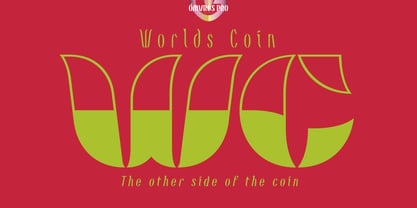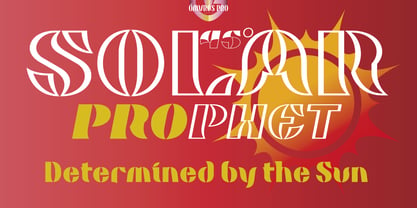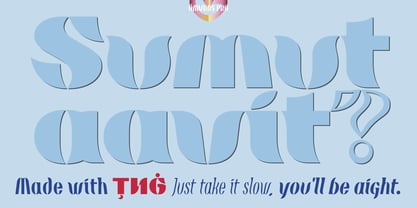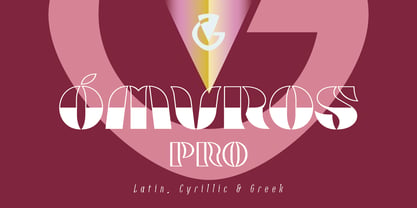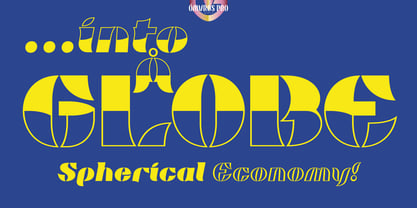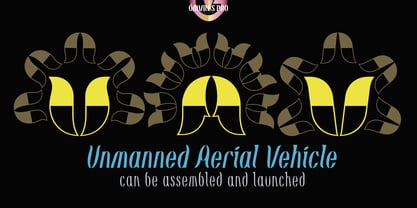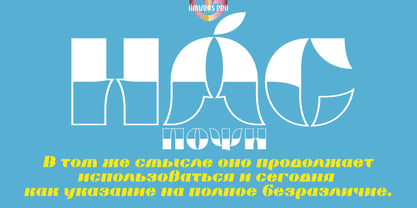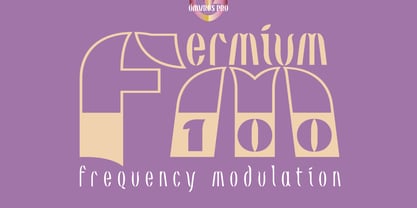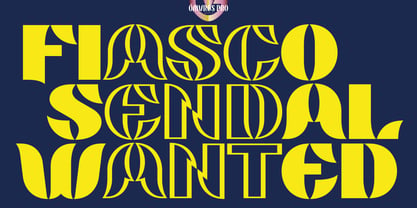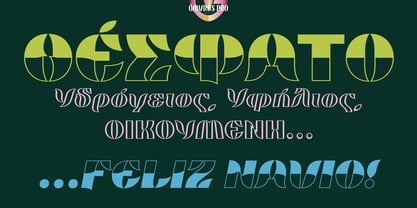
Omvros Pro
by DBSV
The Omvros Pro Font Family was designed by Vangelis Dim. Gardikiotis and published by DBSV. Omvros Pro contains 18 styles and family package options. More about this family
About family “Omvros Pro” The word Omvros means heavy rain, sudden rain, or downpour. It is an atmospheric phenomenon like rain or snow. This water is collected in a separate rainwater network or in absorption wells and is not mixed with the lemmas (dirty water from homes). In summary, it is rainwater that must be removed from structures to prevent flooding and moisture damage for environmental protection. I aimed to incorporate into the design the flow, leakage, and collection of rainwater that comes freely from the atmosphere and is so beneficial for everything in the whole Universe. This series is composed of eighteen fonts, each with 632 glyphs, true italics, and supports Latin, Cyrillic, and Greek.